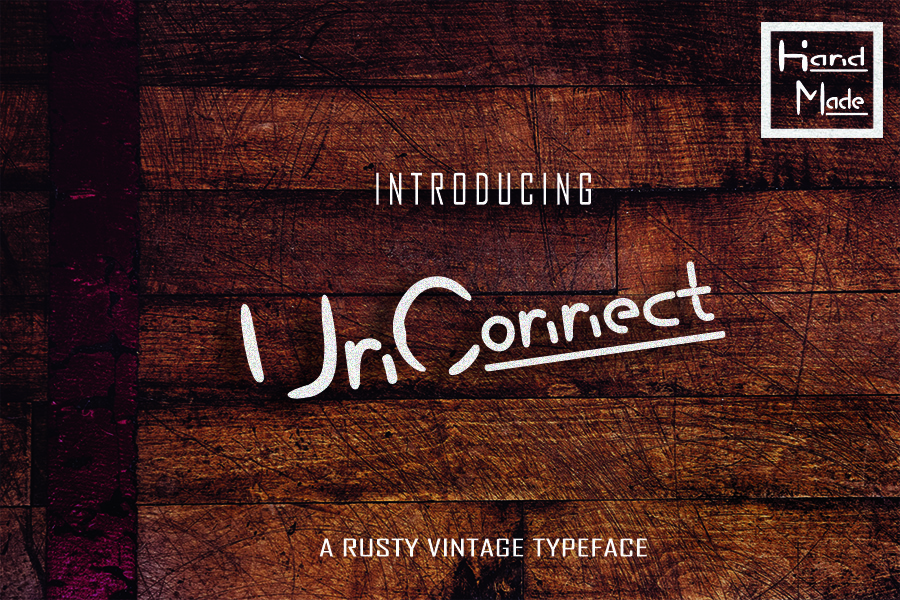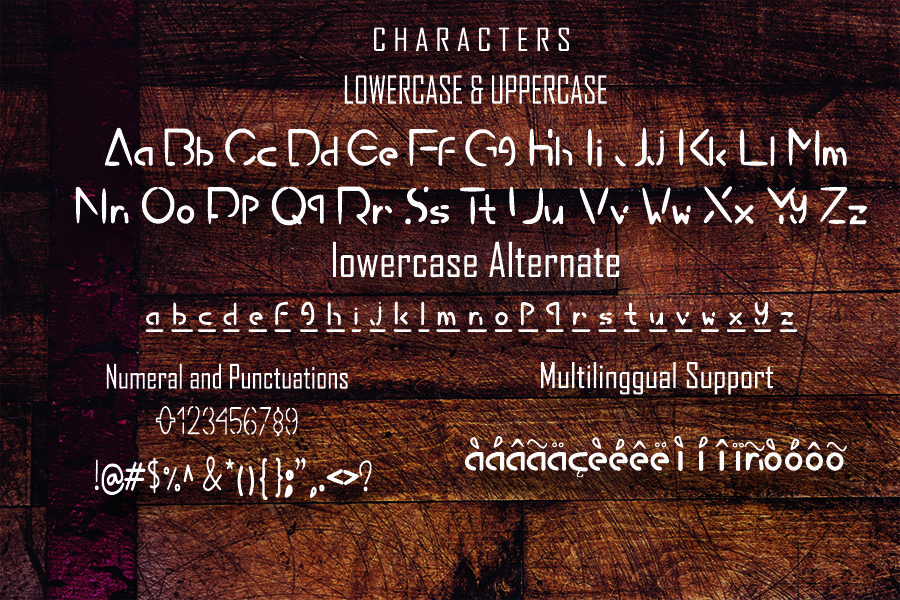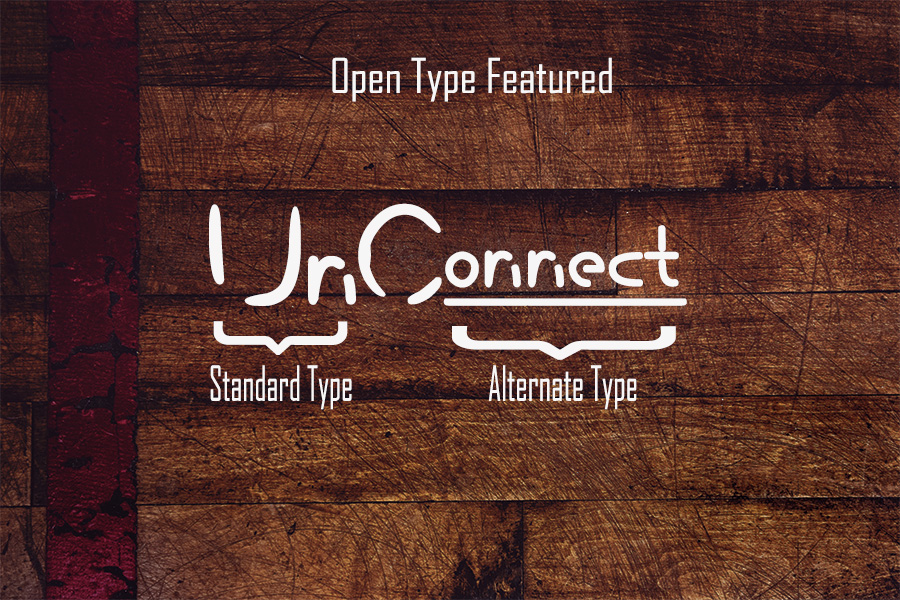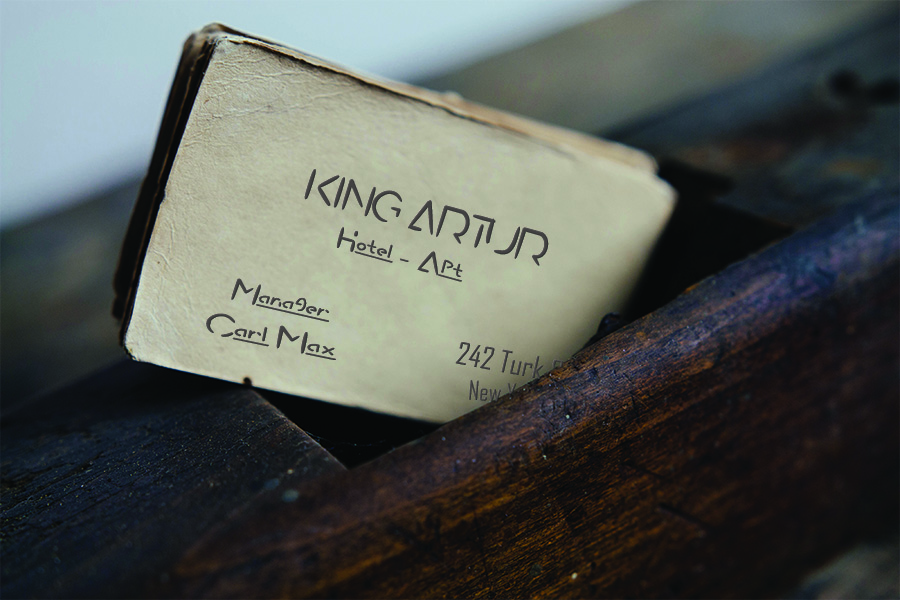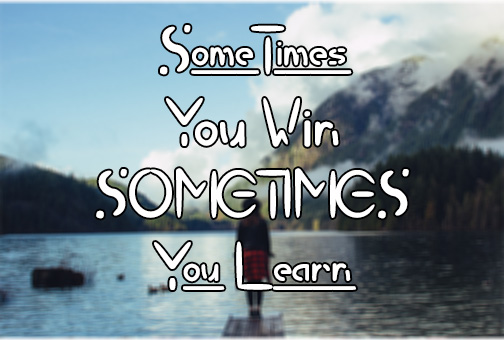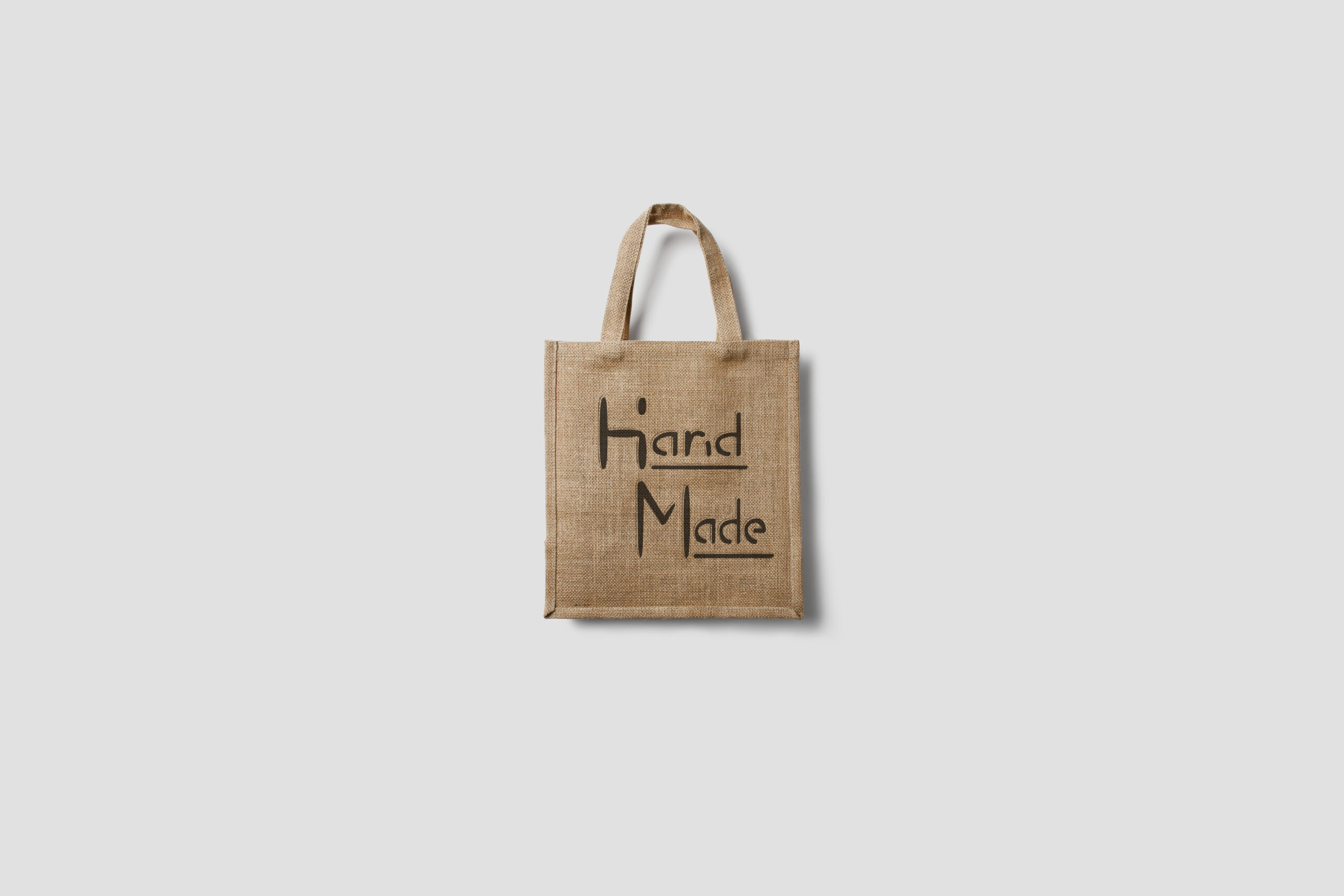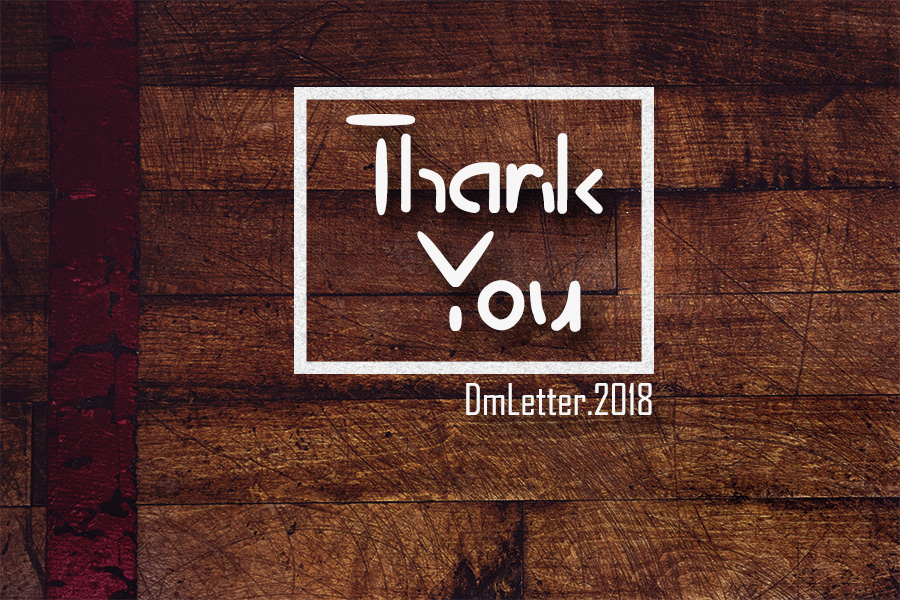
UnConnect Font
About UnConnect Font
UnConnect is a beautiful, rustic handmade font with a stencil appeal. This font works well in classy designs and in hip projects, and has a highly brandable appeal.